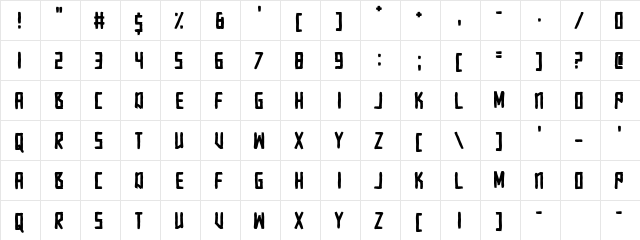
Loudhailer Regular
Design Context for Loudhailer Typeface
Loudhailer is a composed and adaptable typeface that performs quietly and consistently across a wide range of design contexts.